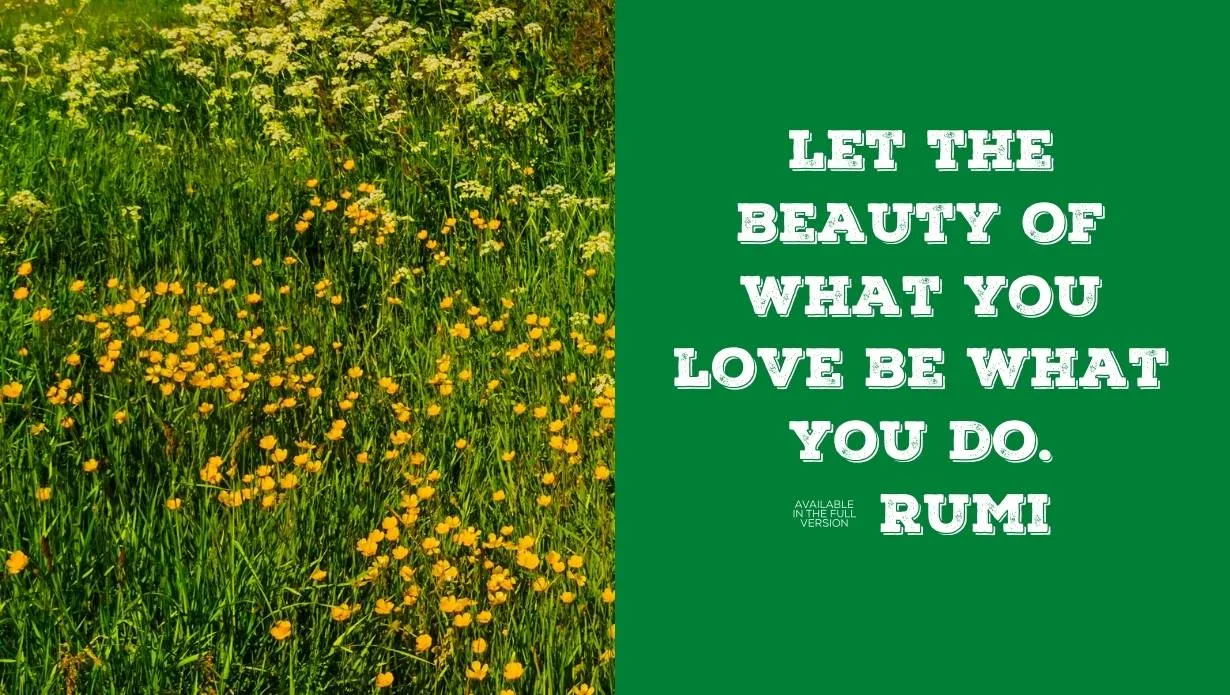
Nexa Rust Font is a slab serif font with a rustic, vintage feel. This typeface was created by Fontfabric Type Foundry. It’s perfect for logos and other design projects that need a touch of flair. It is classed into different categories like Slab Serif, Script, and more.
Nexa Rust Font Family
| Name | Nexa Rust Font |
| Designer | Fontfabric |
| Style | Slab Serif |